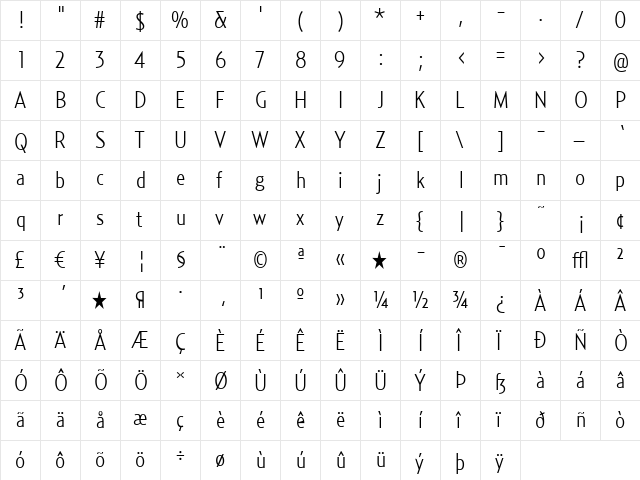
RelayCond-Light Regular
| Designer | Cyrus Highsmith |
RelayCond-Light is a composed and adaptable typeface that performs quietly and consistently across a wide range of design contexts. Its slender proportions lend an understated elegance to any composition. Its narrow stance lets it pack a punch even in space-constrained designs.